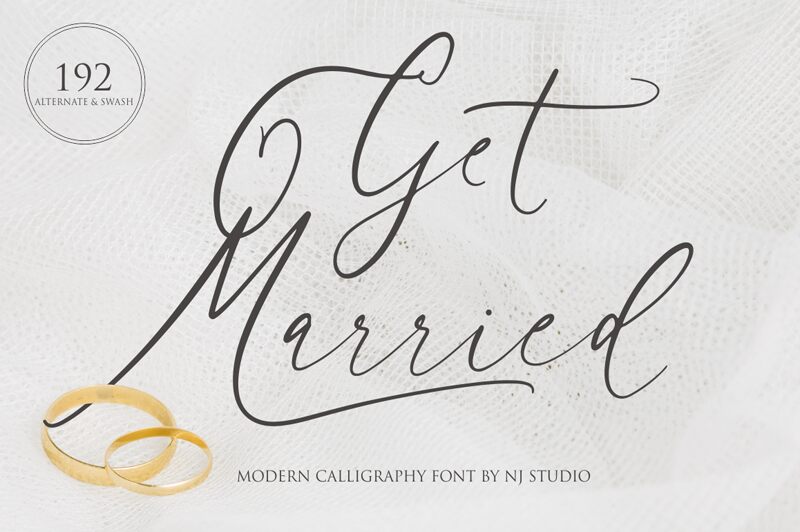
The "Get Married" font by NJ Studio exudes an enchanting, calligraphic elegance. Its light, flowing strokes create a sense of refined sophistication, effortlessly capturing the essence of romance and commitment. The graceful curves and seamless connections between letters evoke a sense of timelessness, making this font an ideal choice for wedding invitations, save-the-dates, and other matrimonial celebrations.
This versatile font can also find a home in a variety of design contexts, from luxury branding and stationery to heartfelt personal correspondence. Its delicate, yet impactful appearance lends an air of charm and authenticity to any project, making it a compelling choice for those seeking to convey a sense of elegance and commitment.